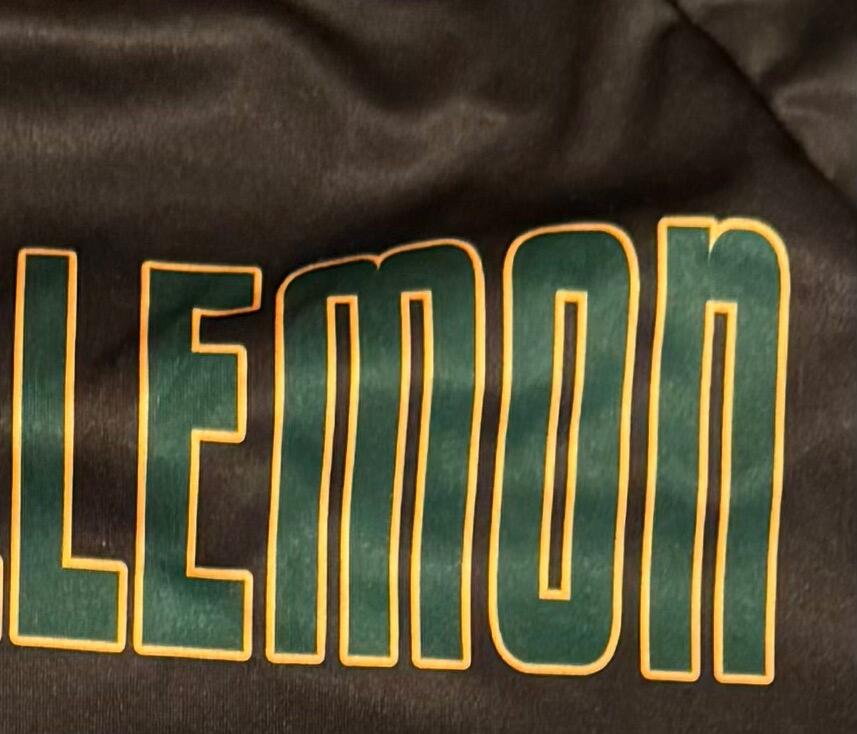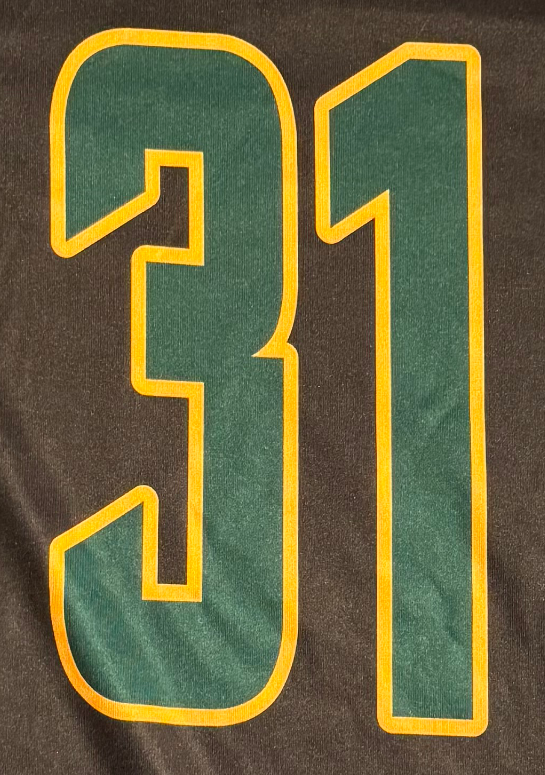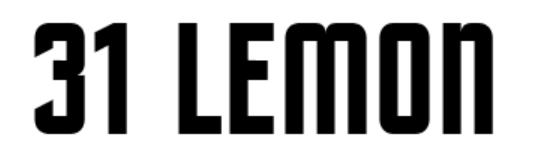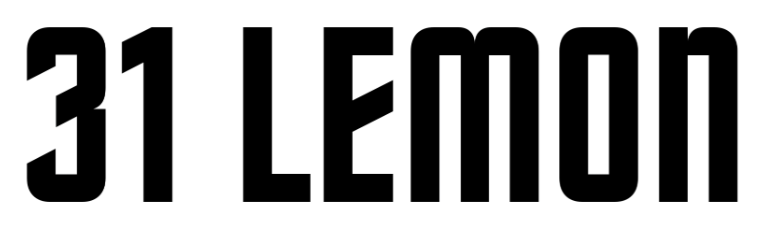
Identify tall, thin font from Athletic Jersey
I need help identifying this tall, thin font from a youth athletic jersey. I have an example of both numbers and letters. Thanks for the help.